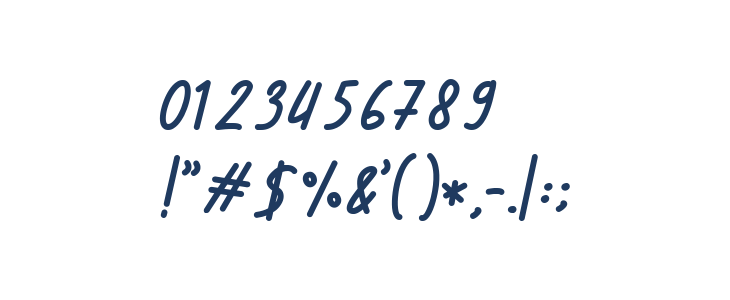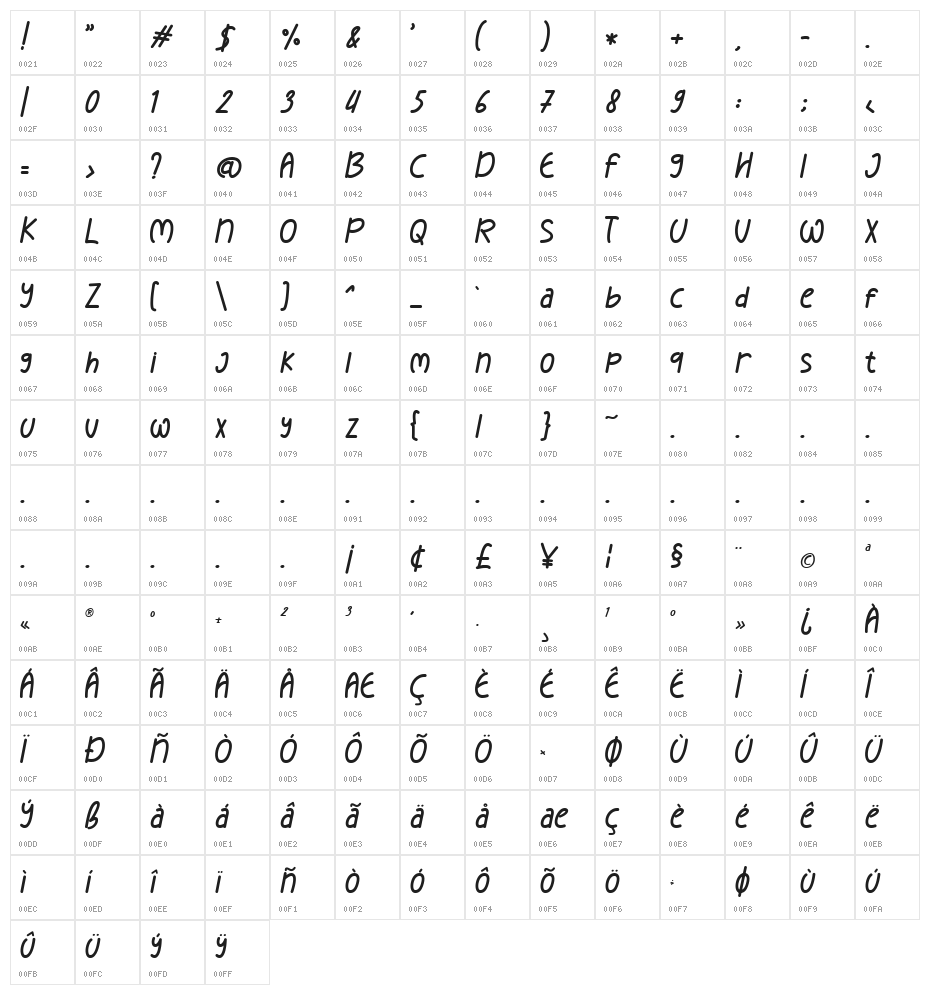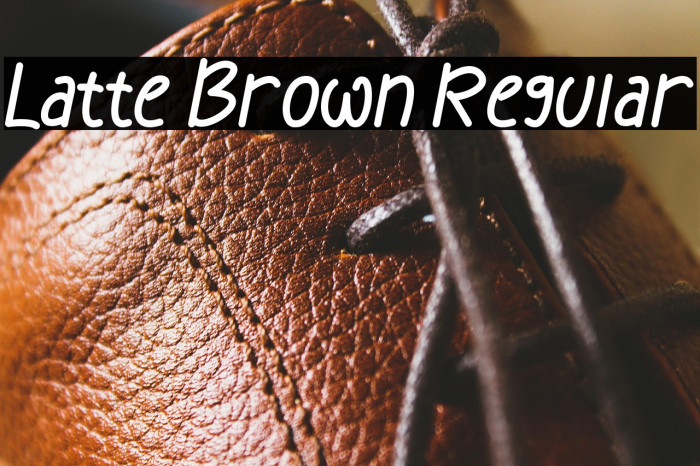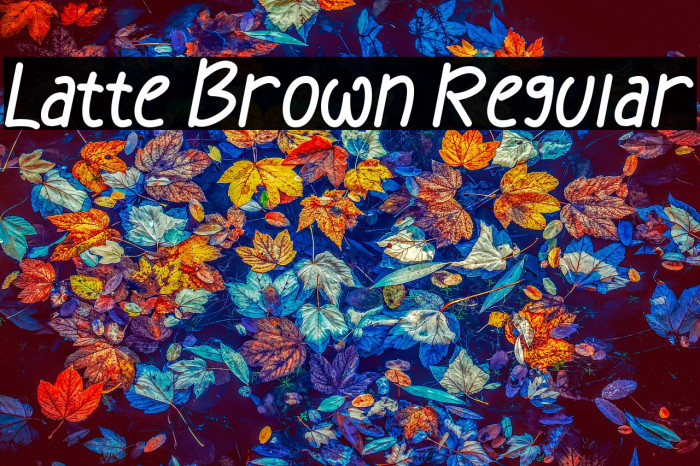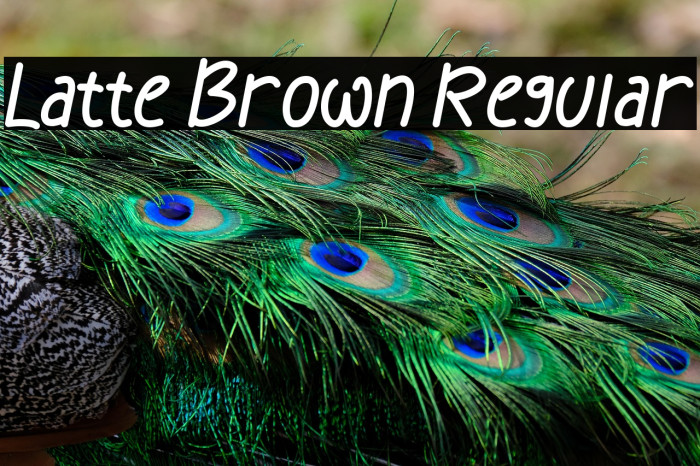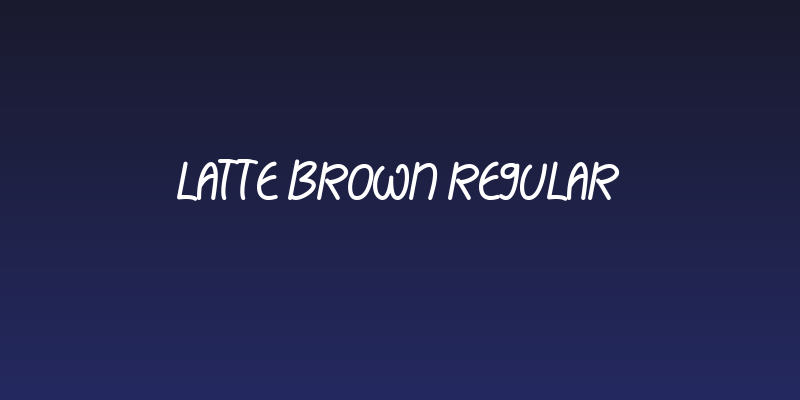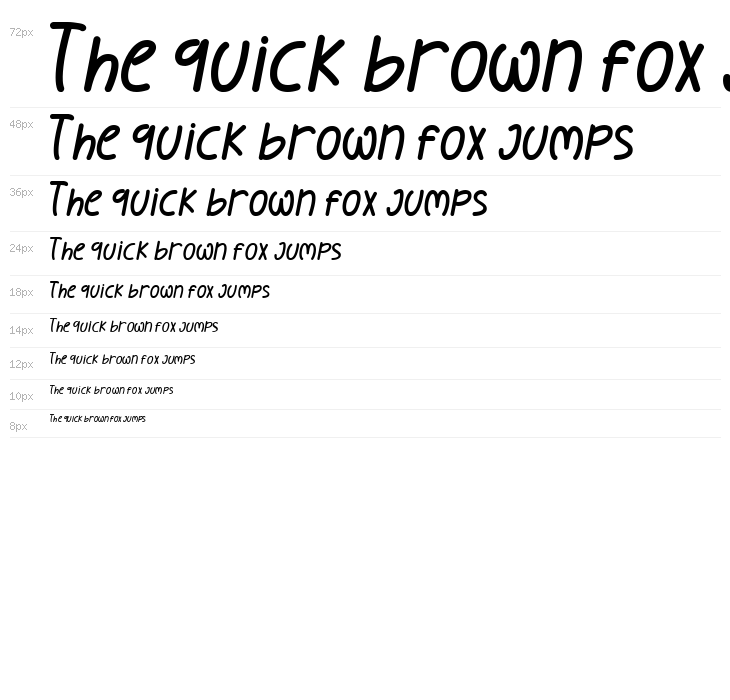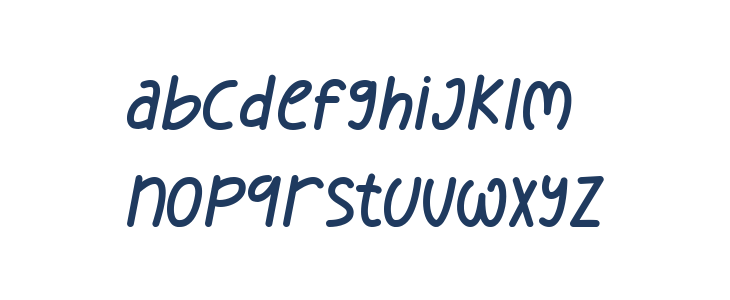
Latte Brown Regular Font
Latte Brown Regular Description
This font features a playful and casual handwritten style, characterized by smooth, rounded edges and a consistent flow throughout the characters. The letters are slightly slanted, giving a dynamic and informal appearance. The uppercase and lowercase letters maintain a uniform height, contributing to a cohesive look. Numbers and special characters are designed with the same playful touch, ensuring versatility across different uses. The overall design is approachable and friendly, making it suitable for projects that require a personal and informal tone.
| Use Case | Logos, Headlines, Informal text |
| Proposed Projects | Ideal for greeting cards, children's books, casual branding, and social media graphics. |